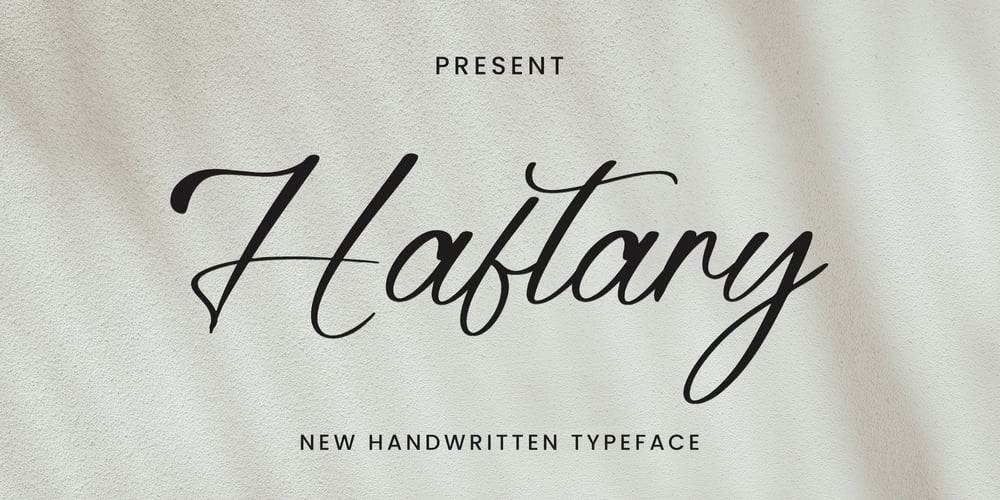
Haftary Font Family was designed by Dhoni Trihatmoko and published by Ayska. Haftary contains 1 styles and family package options. Haftary is a delightful handwritten font. It truly shines when applied to handwritten elegance on invitations, warm greetings on cards, brand identity designs, and more. Infuse your projects with the nonchalant elegance of Haftary. It’s natural and casual handwriting script font with a unique style.